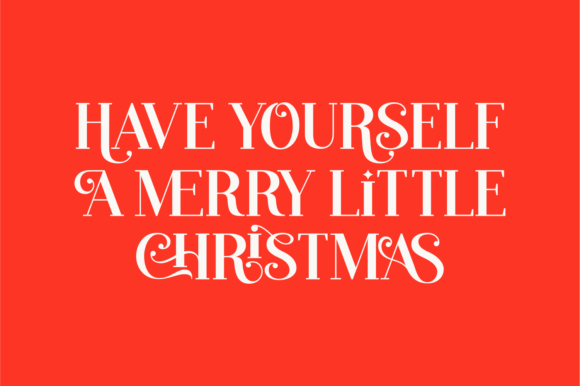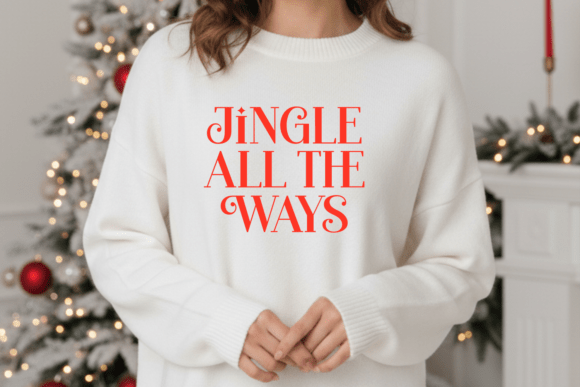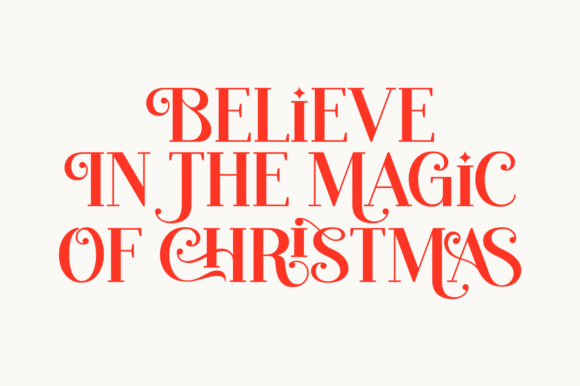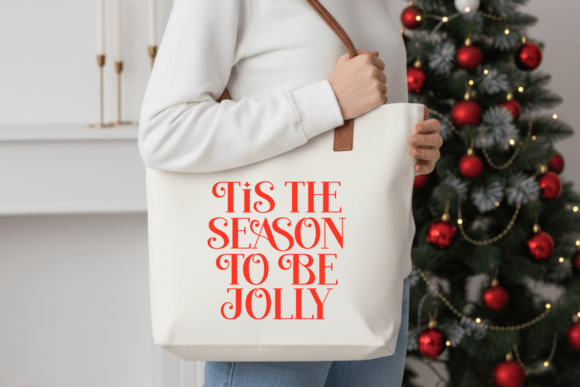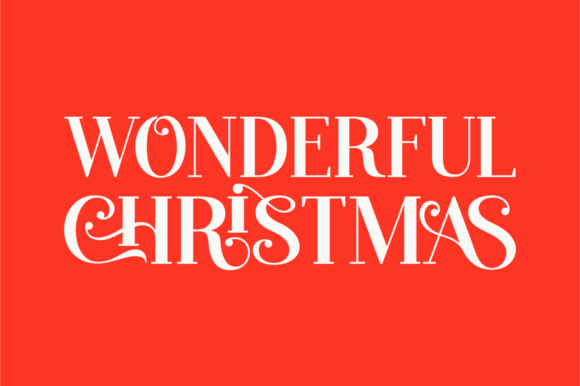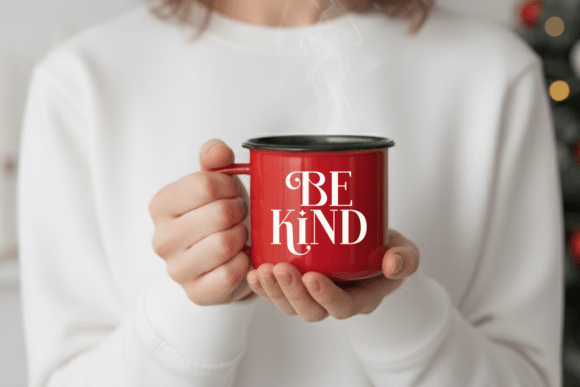
Introducing Christmas Amour: The Ultimate Festive Font for Your Holiday Creations
Are you looking for a font that captures the essence of Christmas and adds a touch of magic to your holiday-themed designs? Look no further than Christmas Amour, a captivating blend of refinement and yuletide enchantment. This display serif font is specifically crafted to infuse a radiant festive feel into every holiday-themed creation, making it perfect for designers and crafters alike.
A Festive Font with a Timeless Elegance
Christmas Amour boasts a distinctive fusion of timeless elegance and gleeful vigor, transforming every expression into a strikingly magical message drenched in seasonal cheer. Its sumptuous serif base provides a solid foundation, while light-hearted swashes and charming ornaments add a playful touch. This unique combination makes Christmas Amour the perfect font for a wide range of holiday-themed applications, from Christmas greeting cards to brand identity, social media posts, or seasonal packaging needs.
Key Features of Christmas Amour
- Display Serif Font: Christmas Amour is designed to make a statement, with a bold and elegant serif base that commands attention.
- Light-Hearted Swashes: Add a playful touch to your designs with Christmas Amour’s charming swashes, perfect for creating festive and fun holiday-themed creations.
- Charming Ornaments: Take your designs to the next level with Christmas Amour’s beautiful ornaments, carefully crafted to add a touch of magic to your holiday creations.
- PUA Coding: Christmas Amour arrives with PUA coding, guaranteeing hassle-free access to all glyphs, swashes, and alternate characters, making it easy to customize your inspired creations.
Why Choose Christmas Amour?
So why choose Christmas Amour for your holiday-themed designs? Here are just a few reasons:
- Versatility: Christmas Amour is perfect for a wide range of holiday-themed applications, from Christmas greeting cards to brand identity, social media posts, or seasonal packaging needs.
- Ease of Use: With PUA coding, accessing all glyphs, swashes, and alternate characters is easy, making it simple to customize your designs.
- Unique and Eye-Catching: Christmas Amour’s distinctive fusion of timeless elegance and gleeful vigor makes it a standout font that will capture the attention of your audience.
Tips for Using Christmas Amour
Here are a few tips for using Christmas Amour in your holiday-themed designs:
- Experiment with Swashes: Don’t be afraid to get creative with Christmas Amour’s light-hearted swashes, using them to add a playful touch to your designs.
- Mix and Match: Combine Christmas Amour with other fonts to create a unique and eye-catching look.
- Customize: Take advantage of Christmas Amour’s PUA coding to customize your designs, adding your own personal touch to your holiday creations.